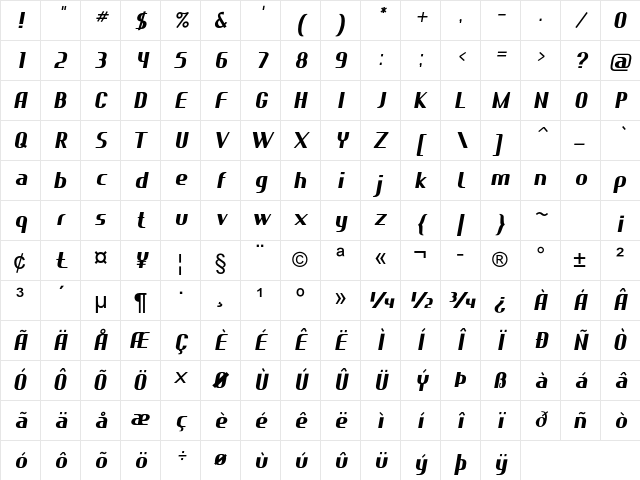
Crevil Black Regular
Design Context for Crevil Black
Crevil Black is a composed and adaptable typeface that performs quietly and consistently across a wide range of design contexts.